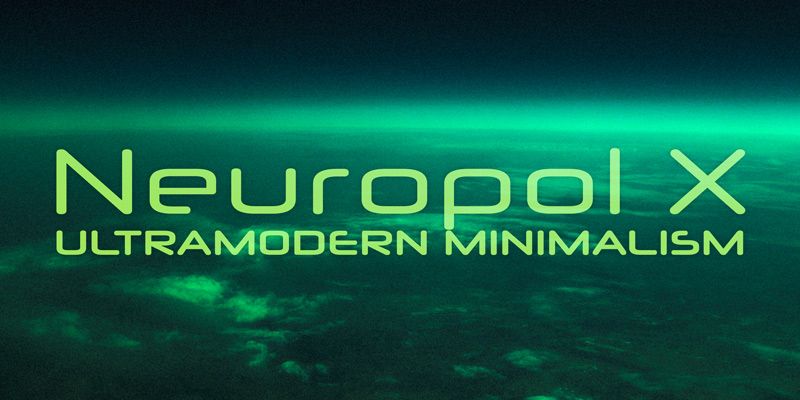
Neuropol
Neuropol is a wide, starkly futuristic typeface which was created in 1996. The design is based on rounded squares which were popular in earlier techno fonts such as Microgramma, Digital and Chimes.